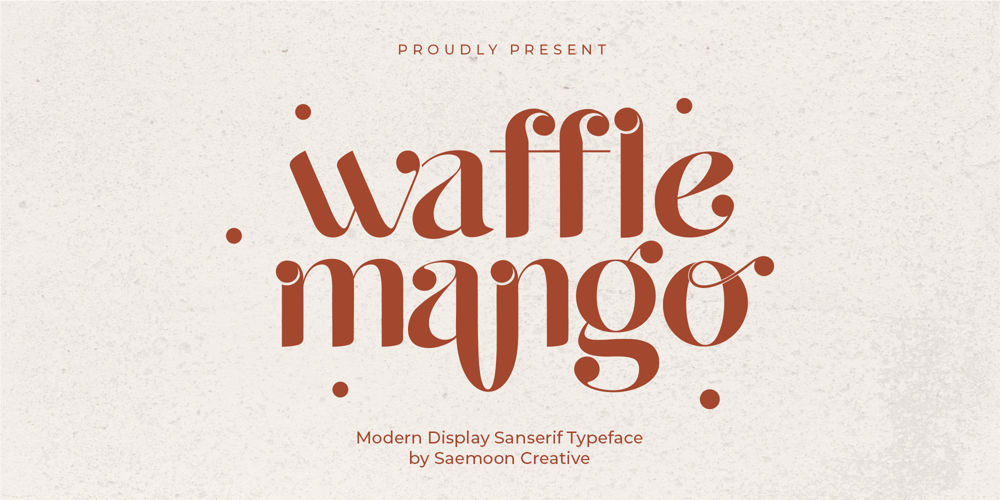
Waffle Mango Font Family was designed by Sapto Susilo and published by Saemoon Creative. Waffle Mango contains 1 styles and family package options. Waffle Mango is a modern and elegant sans-serif font. Waffle Mango is well-suited for advertising, branding, logotypes, packaging, titles, headlines, and editorial designs.